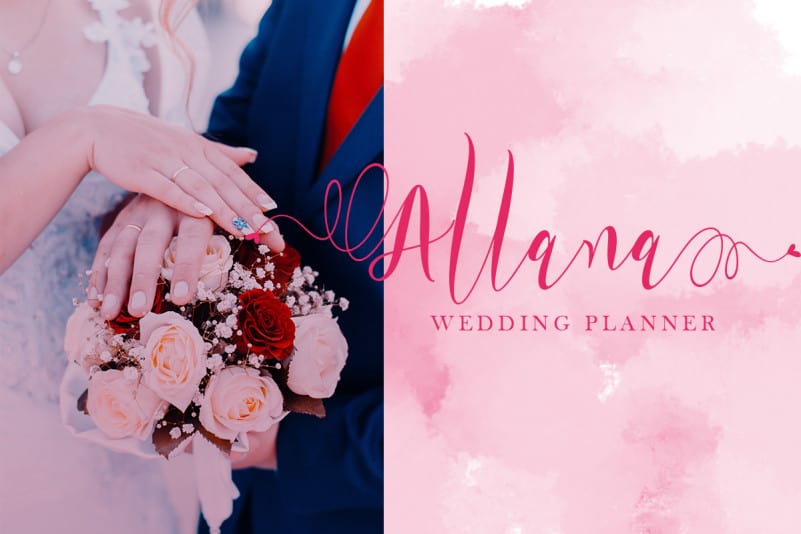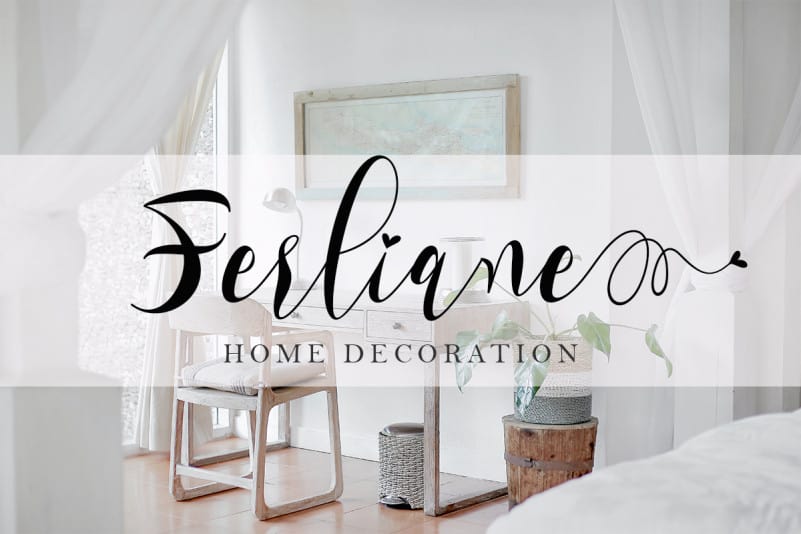
Rossaline Calligraphy Font
This font is named Rossaline Calligraphy Font. Rossaline is a very beautiful and high quality lovingly crafted font. This font can make your work more beautiful and elegant. This font is perfect for marketing your products, promote your bussines, creating quotes, weddings, invitation cards, logos, branding and status updates on social media. Can also be used to enhance your beautiful moments, and others.